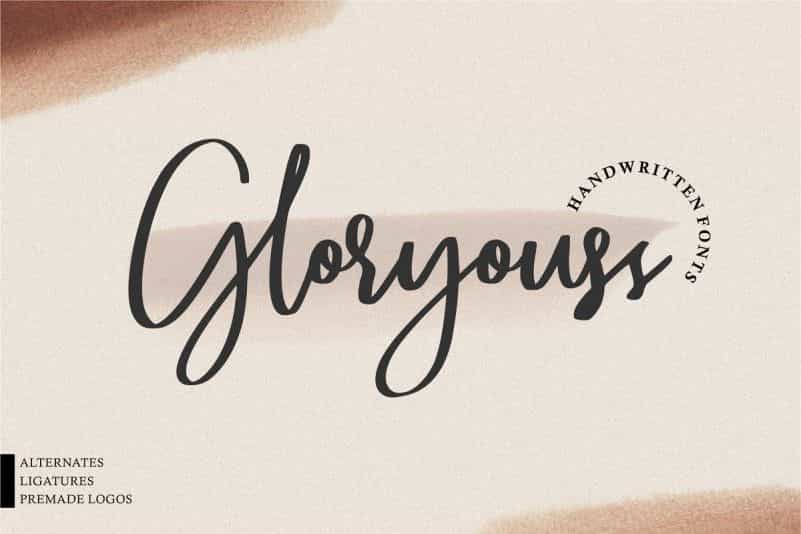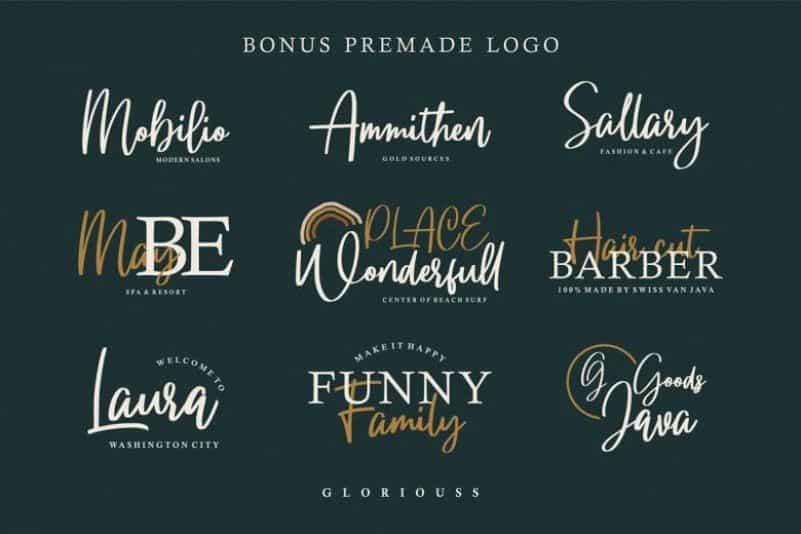
This is a very beautiful handwritten font for luxury and it has the most charming curve. Introducing Gloryouss Font. Gloryouss Script Font is a natural & modern font which was handwritten.